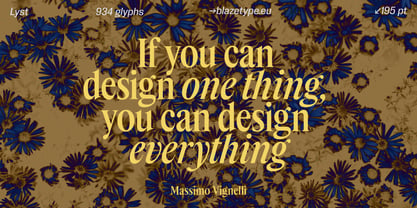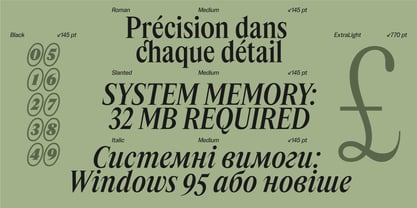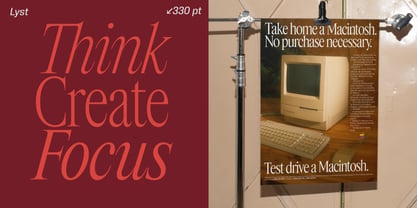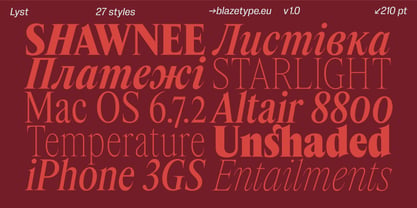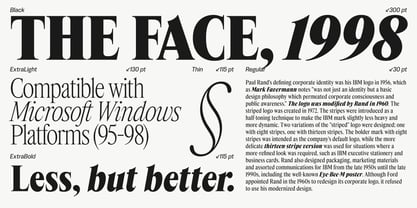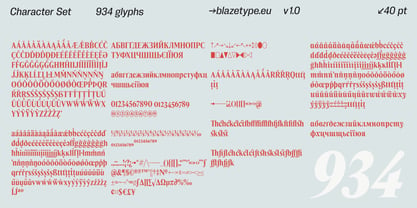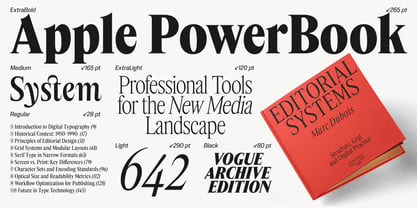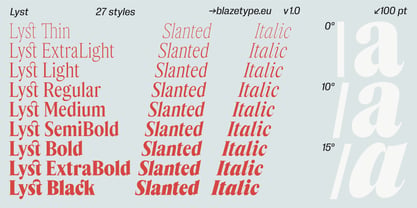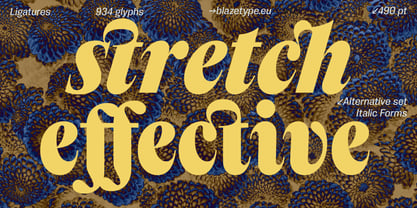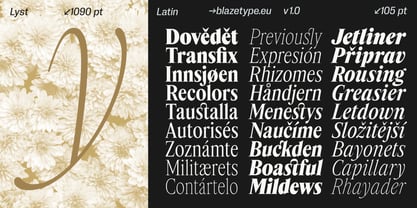
Lyst
by Blaze Type
The Lyst Font Family was designed by Maksym Kobuzan and published by Blaze Type. Lyst contains 27 styles and family package options. More about this family
Lyst is a condensed serif shaped by the visual culture of the late 20th century. Rather than reviving a single source, it captures the broader editorial atmosphere of the period — where corporate clarity met magazine sophistication. The initial spark came from a familiar sight: mechanically condensed Times New Roman in everyday print. Instead of treating that compression as a flaw, Lyst takes it as a subtle point of departure. Lyst focuses on narrow proportions and a disciplined rhythm, with a slight vertical tension that gently animates the forms. At the same time, the typeface avoids rigidity. While its structure references the editorial serif tradition of the late 2x0th century, the forms are refined with added dynamism and plasticity. The result is a hybrid: part corporate, part editorial, part quietly expressive — without being tied to any single historical model. Lyst includes 27 styles across a broad weight range, featuring Roman, true Italic, and Slanted cuts. The Slanted styles are set at a precise 10° angle and carefully adjusted to maintain visual balance. Their presence reflects the original conceptual premise: if mechanical compression can define proportion, mechanical inclination can define movement. An alternative stylistic set with Italic Forms allows users to replace the Roman or Slanted structures with upright italic constructions for a more expressive tone. All styles are unified in a single variable font, offering flexible control while preserving internal consistency.
Designers: Maksym Kobuzan
Current Foundry: Blaze Type